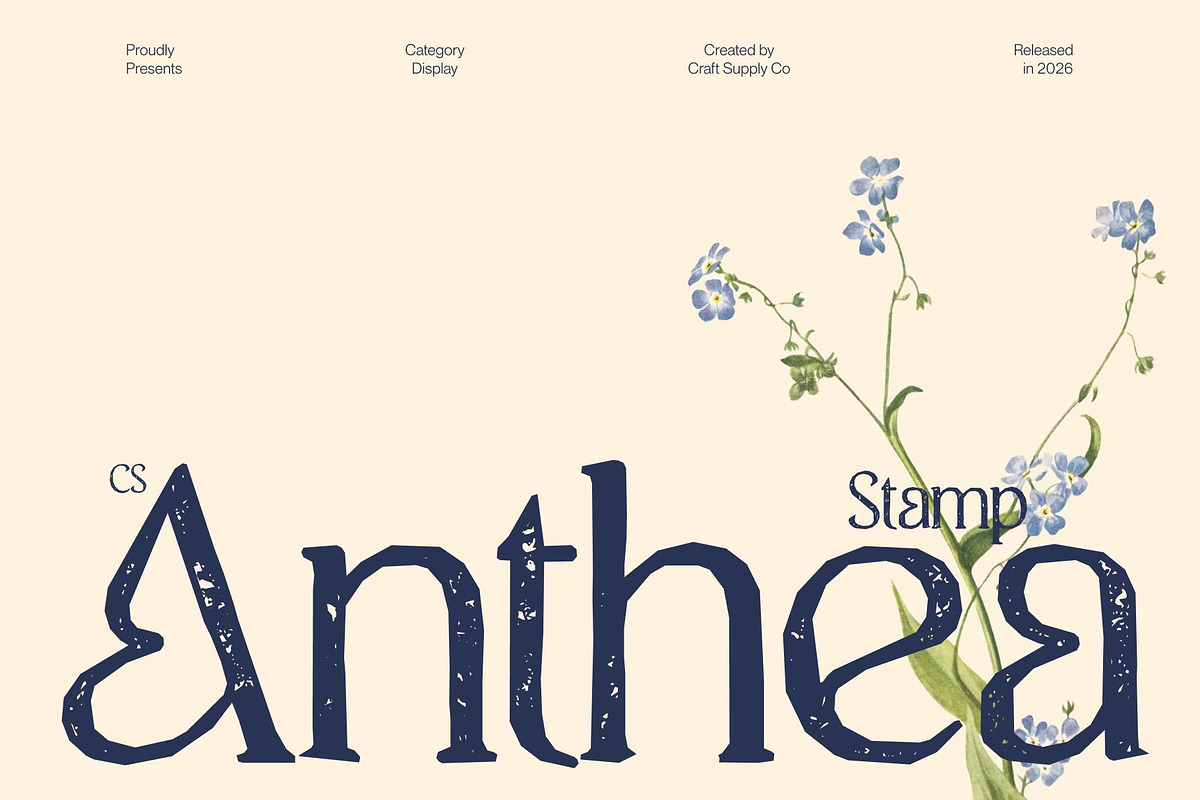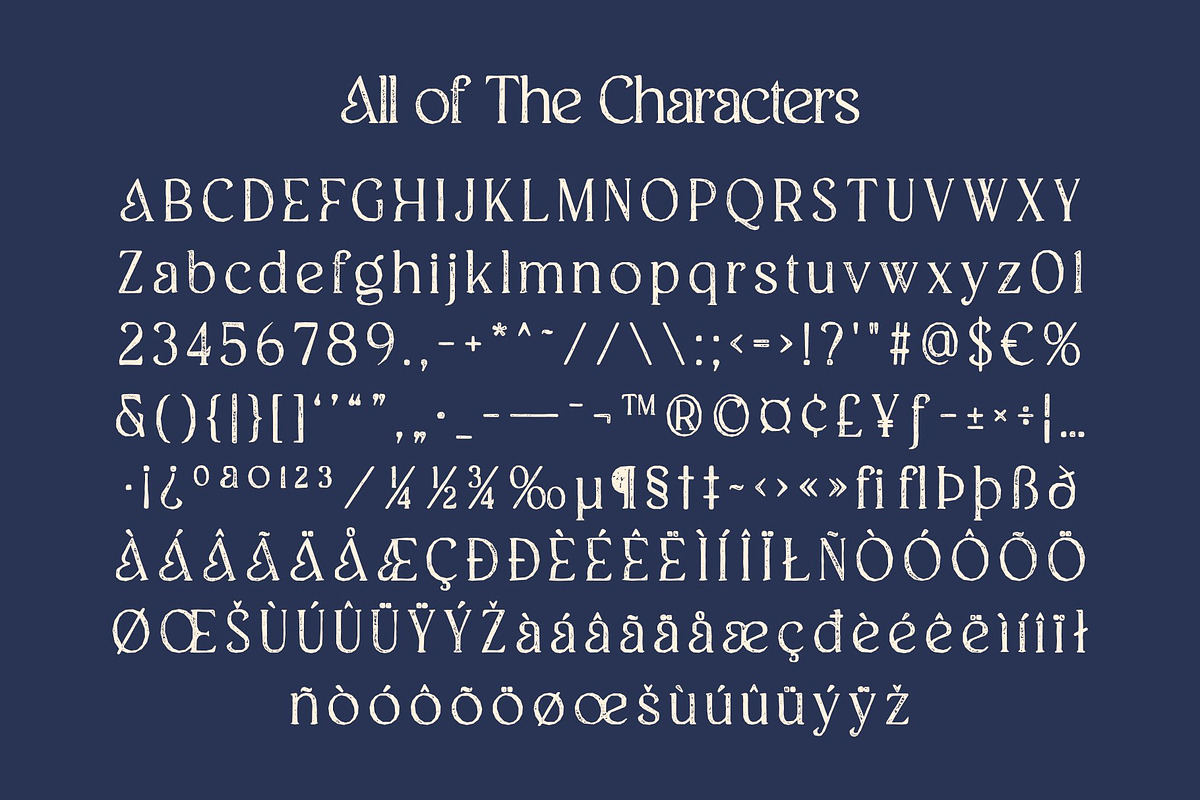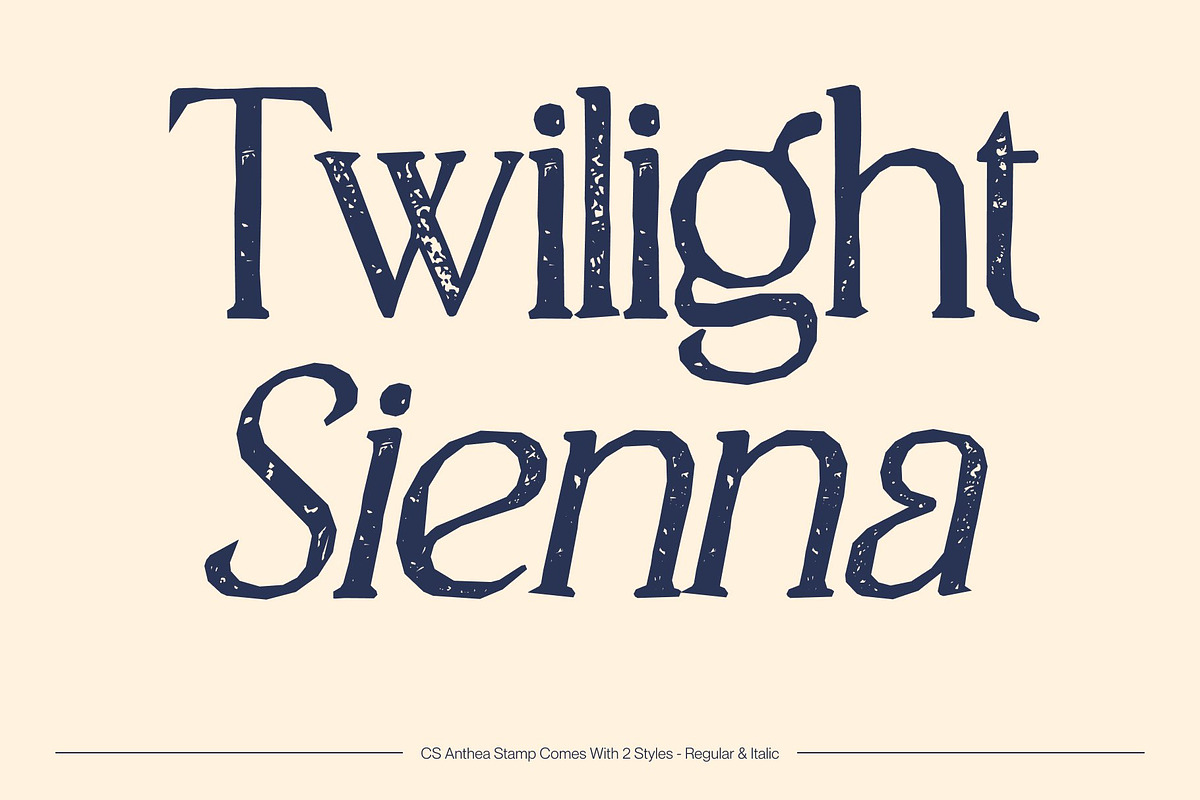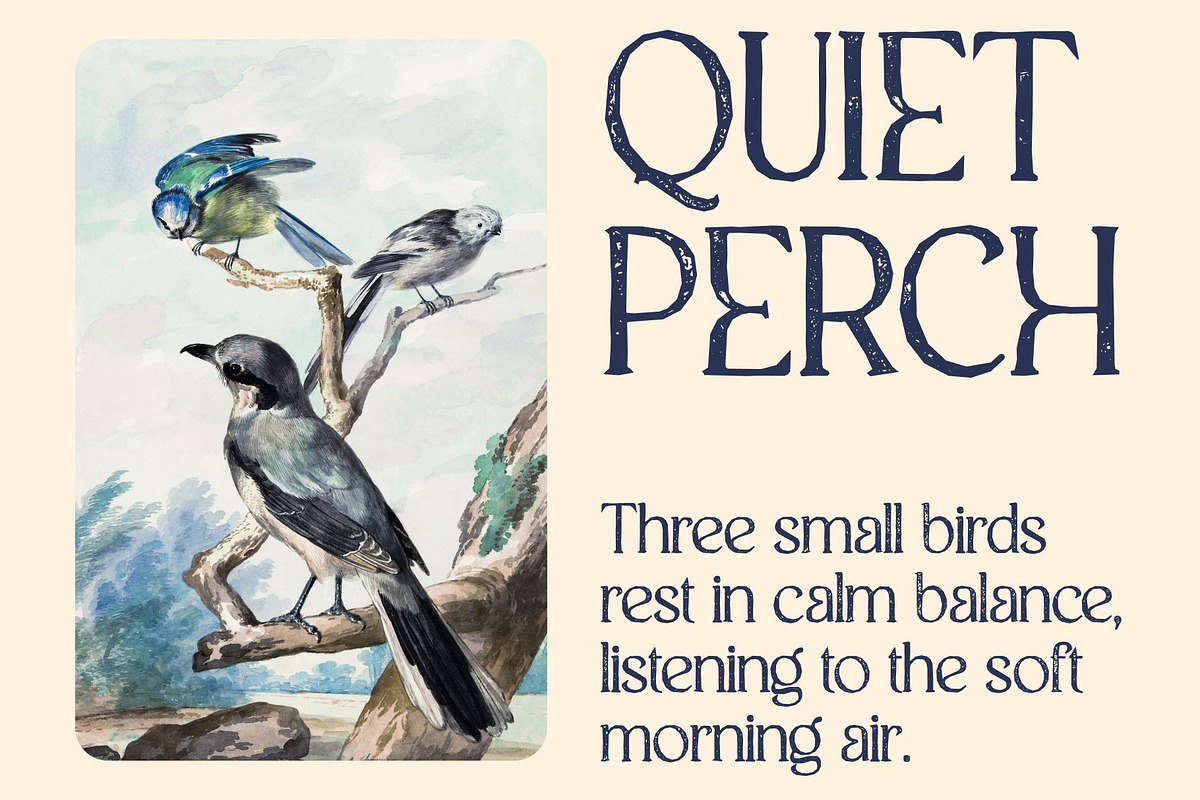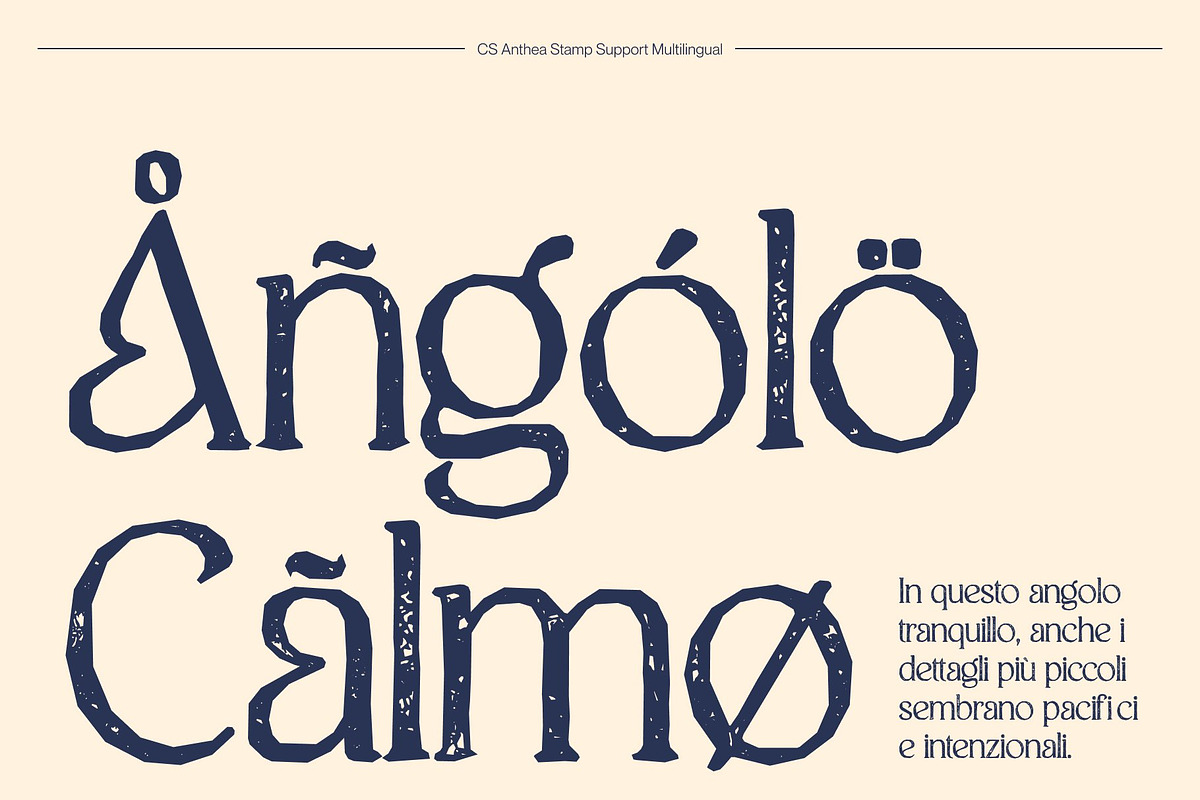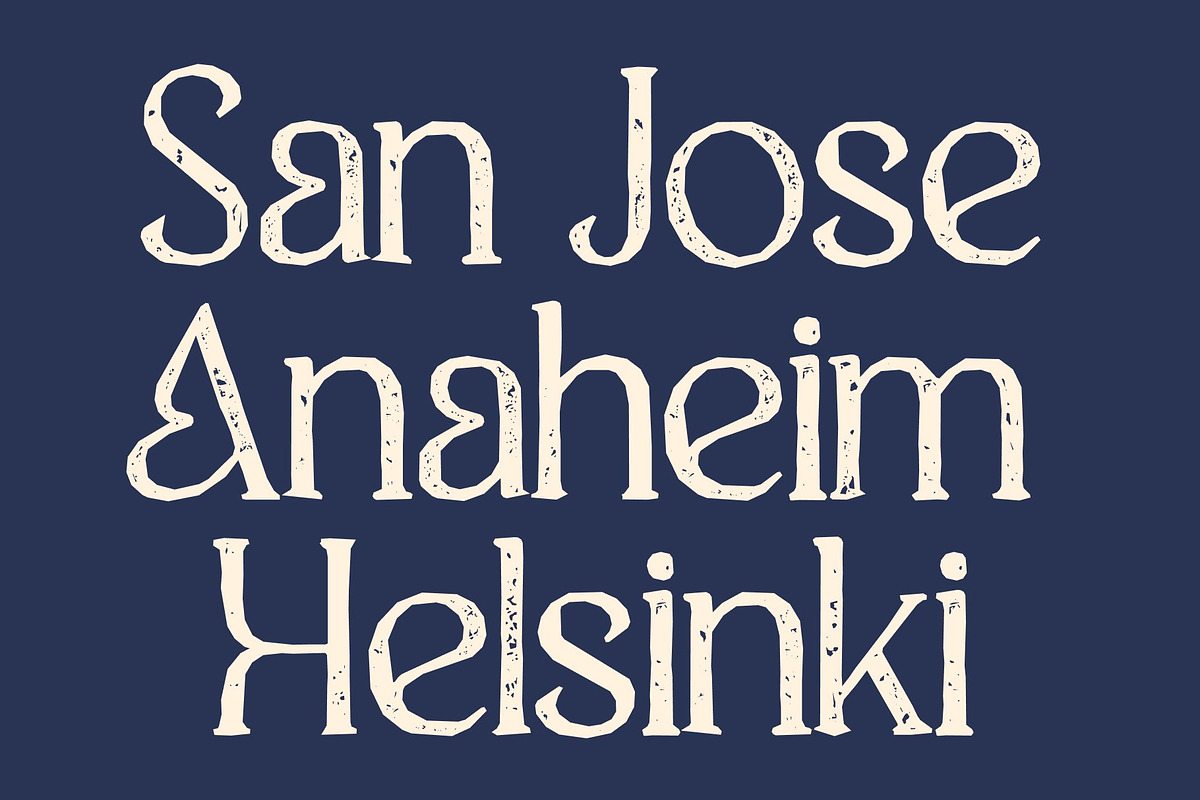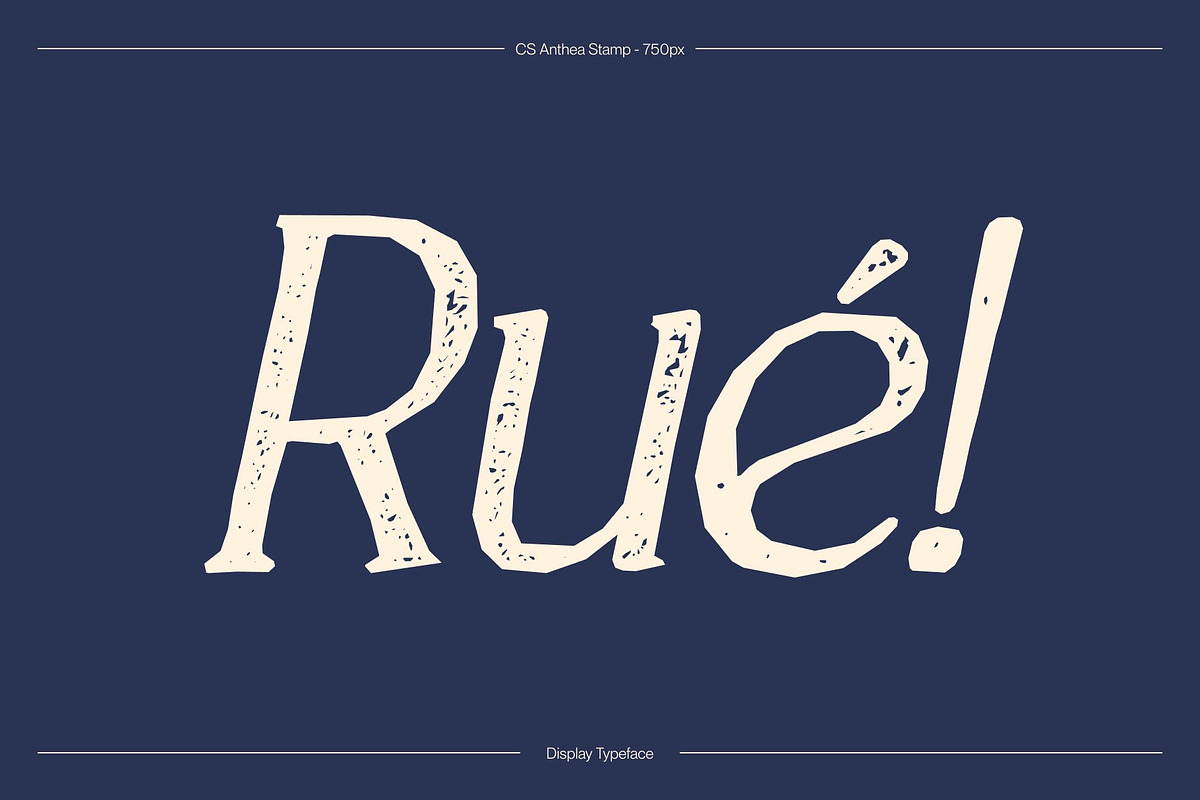
CS Anthea Stamp
CS Anthea Stamp – Refined Serif with Vintage Texture and Timeless Sophistication
Elegant Serif with Distressed Stamp Character This transforms the classic elegance of the original serif into a typeface imbued with artistic texture and tactile personality. The smooth curves and structured serifs are enhanced with subtle distressed marks, giving each letter a vintage, stamped appearance. This effect introduces an old-world charm while preserving the font’s luxurious and refined nature.
Refined Details with Artistic Texture Every character carries the nuances of hand-pressed impressions, from slight irregularities in line edges to soft, ink-like textures. These distressed details enrich the font’s visual depth, making headlines, logos, and editorial text feel bespoke, artisanal, and timelessly sophisticated.
Classic Elegance Meets Modern Sensibility While honoring traditional serif design, this font adds a creative twist with its textured, aged finish. This combination of classic form and modern expressive nuance makes it perfect for projects that require both authority and personality. It reads beautifully in display and body text, maintaining clarity while exuding charm.
Ideal for Luxury Branding, Editorials, and Packaging Perfect for high-end branding, fashion campaigns, premium packaging, book typography, and editorial layouts, this font adds a distinguished, handcrafted feel to every design. Its blend of refined elegance and artistic texture creates a sophisticated visual identity that feels exclusive, memorable, and timeless.
CS Anthea Stamp Regular
CS Anthea Stamp Italic